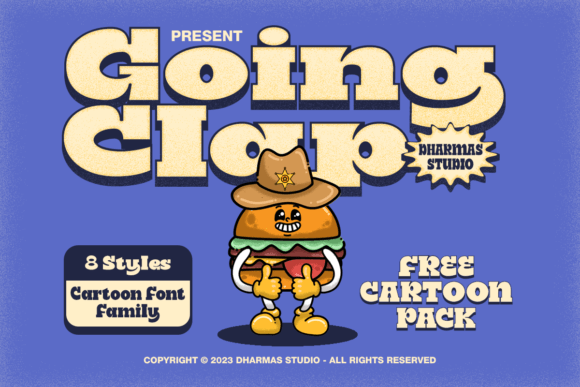
Feast your eyes on the captivating Going Clap font collection, a treasure trove of typographic artistry that breathes life into your creative projects. Picture this: a font family so bold and nostalgic, it's like a vintage concert poster come to life. This chunky slab serif typeface is your secret weapon for making text pop with artistic flair, transporting you to an era of classic charm.
With eight distinct font families, ranging from Condensed to Expanded and their striking shadow versions, Going Clap offers the ultimate versatility for your creative endeavors. Whether you're crafting stunning logos, eye-catching headlines, or memorable social media posts, this font family makes sure your words leave an unforgettable impression.
But wait, there's more! The Going Clap collection isn't just about fonts; it's also a gateway to a world of retro nostalgia. Included in this fantastic package are 56 remarkable retro mascot illustrations, ready to add a touch of character and timeless charm to your designs. These adorable mascots bring a playful and endearing quality to any project, adding a touch of whimsy that's sure to be adored.
So why settle for ordinary fonts when you can immerse yourself in the artistry of Going Clap? This font collection is more than just a tool; it's a celebration of creativity, a journey into the realm of timeless style. Embrace the nostalgia, embrace the bold, and embrace the Going Clap font collection for a creative experience that's simply unforgettable.